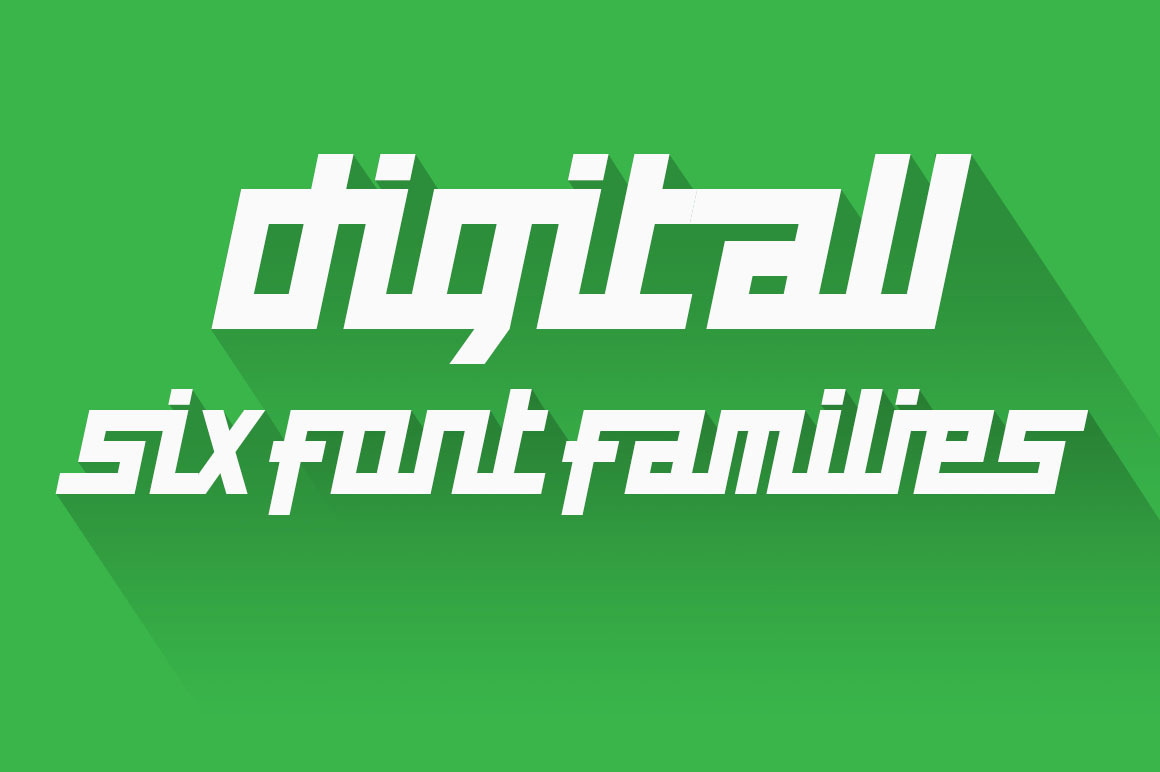
digitall display (six font families)
digitall display is a dynamic and modern fonts, a cube or rectangle. Suitable for display on the website, logotype, blogs, logos, brands, computer book titles, headlines, etc. Digitall was also very sweet when used to pattern background, can be seen on the 05-digitall preview.
digitall font family has six kinds of digitall Black, Black Italic, Bold, Bold Italic, regular, and Italic. With 208 Glyph in any kind of digitall.